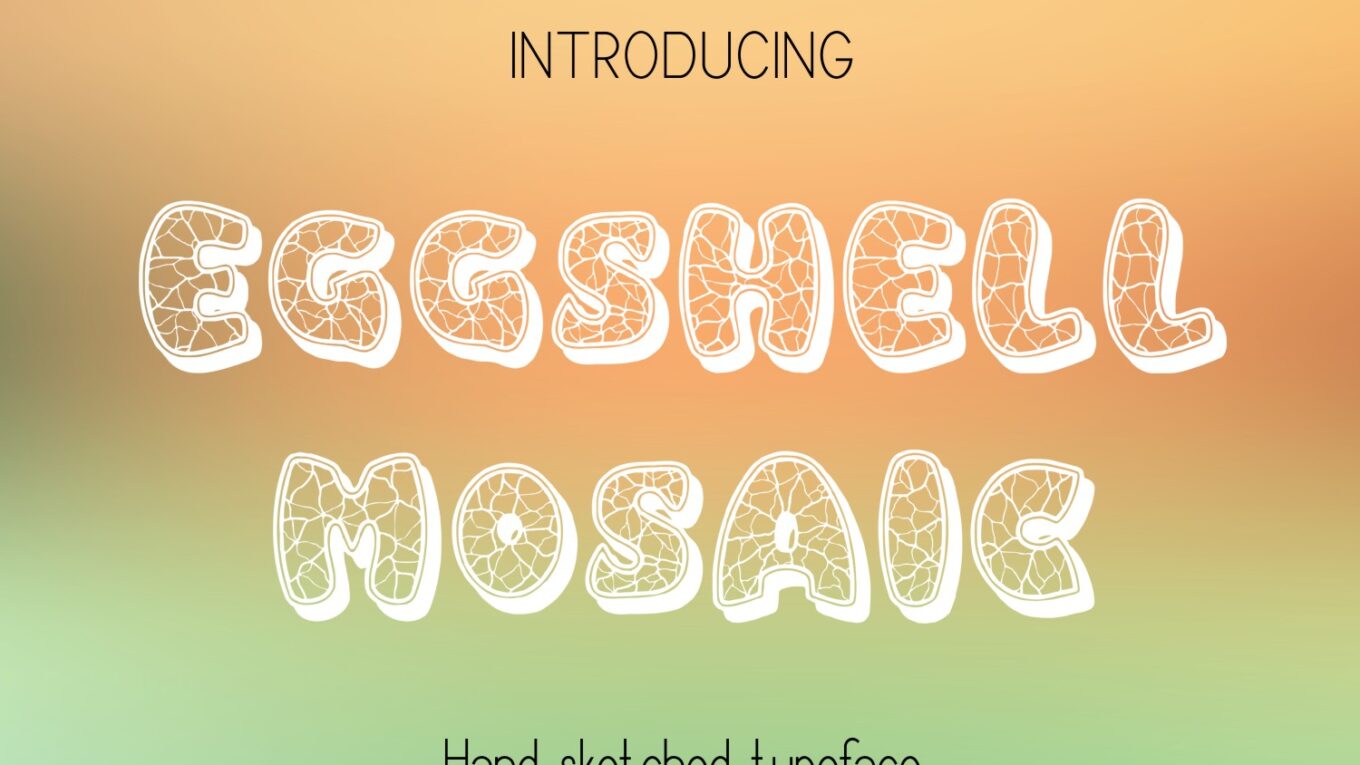
Egg-cellent Design: Introducing the Eggshell Mosaic Font
Are you a designer or crafter looking for a unique and creative way to add some personality to your projects? Look no further than the Eggshell Mosaic Font, a hand-drawn typeface that’s sure to crack a smile on anyone’s face. In this article, we’ll dive into the world of Eggshell Mosaic, exploring its features, benefits, and uses, as well as provide tips and inspiration for incorporating this delightful font into your work.
What is Eggshell Mosaic Font?
Eggshell Mosaic is a hand-drawn typeface, carefully crafted to resemble the intricate patterns found on eggshells. This charming font is made up of tiny, mosaic-like pieces that come together to form each letter and character. The result is a beautiful, one-of-a-kind font that’s perfect for adding a touch of whimsy and elegance to any project.
Features of Eggshell Mosaic Font
- Hand-drawn with love: Each letter and character in Eggshell Mosaic is carefully hand-drawn, giving the font a unique, human touch.
- Mosaic-like design: The font’s mosaic-inspired design makes it perfect for creating visually striking text-based designs.
- Highly versatile: Eggshell Mosaic can be used for a wide range of projects, from digital designs to print materials, and even craft projects like scrapbooking and card-making.
- Easily customizable: With its hand-drawn nature, Eggshell Mosaic can be easily edited and customized to fit your specific design needs.
Benefits of Using Eggshell Mosaic Font
So why choose Eggshell Mosaic Font for your next project? Here are just a few benefits of using this delightful typeface:
- Adds a touch of personality: Eggshell Mosaic’s unique design ensures that your text-based designs will stand out from the crowd and showcase your personality.
- Perfect for creative projects: Whether you’re a designer, crafter, or artist, Eggshell Mosaic is the perfect font for adding a creative twist to your work.
- Great for branding and marketing: The font’s eye-catching design makes it ideal for use in branding and marketing materials, such as logos, business cards, and social media graphics.
Using Eggshell Mosaic Font in Your Designs
Now that we’ve explored the features and benefits of Eggshell Mosaic Font, let’s talk about how to use it in your designs. Here are a few ideas to get you started:
- Pair it with bold colors: Eggshell Mosaic looks stunning when paired with bold, bright colors. Try using it with a vibrant background or paired with a contrasting color to make your text pop.
- Use it for titles and headings: The font’s decorative nature makes it perfect for use in titles and headings. Use it to add a touch of elegance to your designs and draw attention to important information.
- Experiment with textures and patterns: Eggshell Mosaic’s mosaic-like design lends itself well to textures and patterns. Try experimenting with different textures and patterns to add depth and interest to your designs.
Still looking for inspiration? Here are a few ideas to get you started:
- Create a handmade-style design: Use Eggshell Mosaic to create a design that looks like it was made by hand. Pair it with illustrations, watercolor textures, and other crafty elements for a unique look.
- Make a statement with signage: Use Eggshell Mosaic to create eye-catching signage for your business or event. Its decorative nature makes it perfect for use in titles and headings.
- Add a touch of whimsy to packaging: Eggshell Mosaic is a great font to use on packaging, especially for products that are handmade or have a crafty feel.
In conclusion, Eggshell Mosaic Font is a unique and creative typeface that’s perfect for designers and crafters looking to add a touch of personality to their projects. With its hand-drawn nature, mosaic-like design, and highly versatile uses, this font is sure to crack a smile on anyone’s face. So why not give it a try and see how you can use Eggshell Mosaic to add some egg-cellent design to your work?